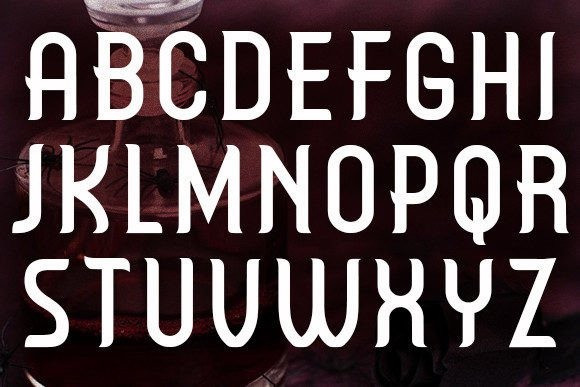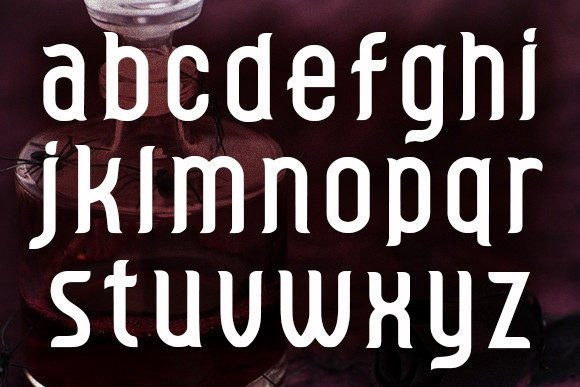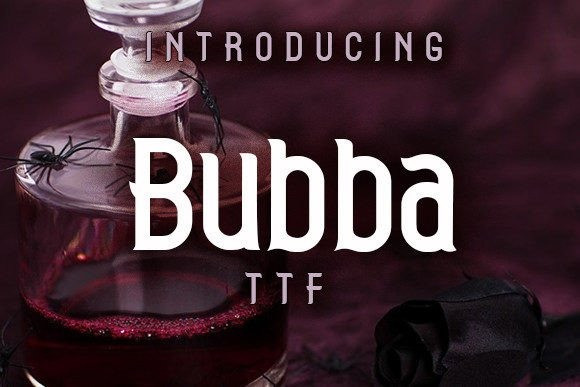
Bubba Font
Bubba Font is stylish Gothic font that will take Your designs to the next level. Use this font on posters, flyers and much more. Thank you so much for checking out this font! Leave a comment if you like it.